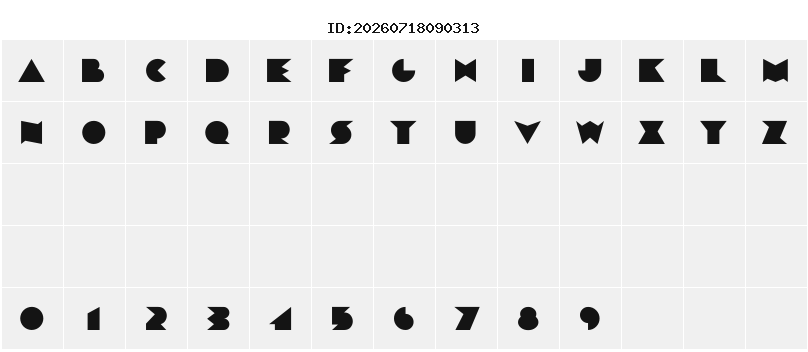
ChainsawGeometric Preview
About ChainsawGeometric.ttf
ChainsawGeometric.ttf is a modern, elegant sans-serif font designed for ultimate readability and visual harmony. Perfect for branding, headlines, web design, and print materials.